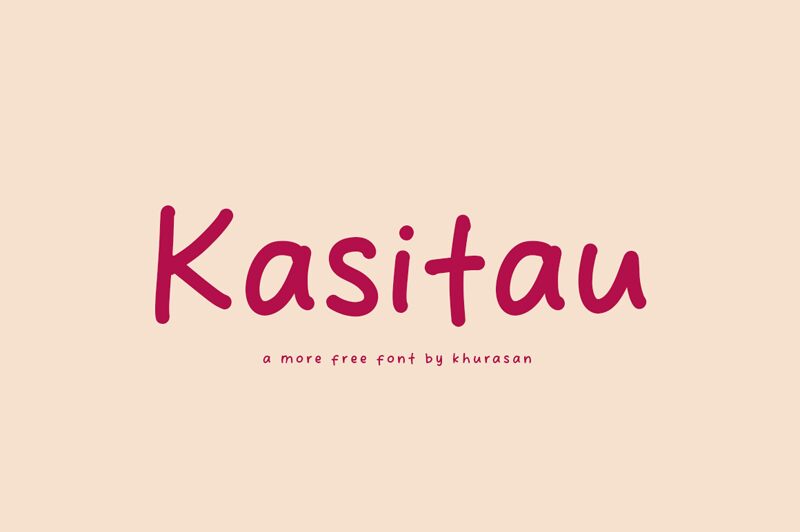
Kasitau
Kasitau, the adorable handwritten font by Khurasan, captures the essence of playfulness with its cute and quirky style.
Its semi-expanded width adds a touch of uniqueness to any project, making it perfect for children's books, greeting cards, and playful branding materials. Let your imagination run wild as Kasitau brings a sense of whimsy to party invitations, nursery decor, and even product packaging.
With its charming aesthetic and versatile nature, this font is sure to bring a smile to anyone's face.